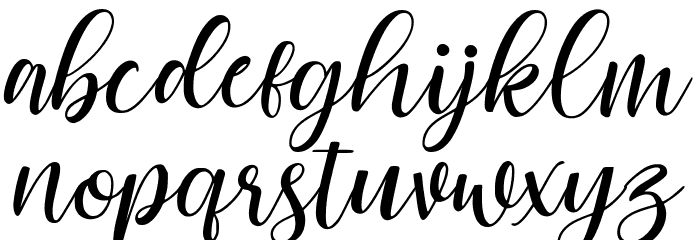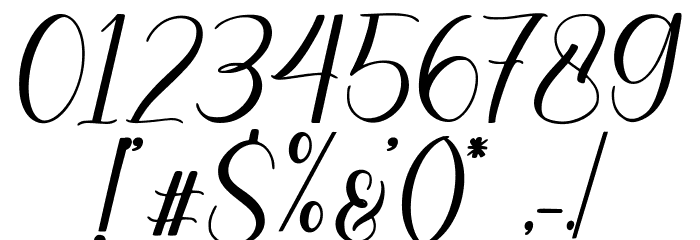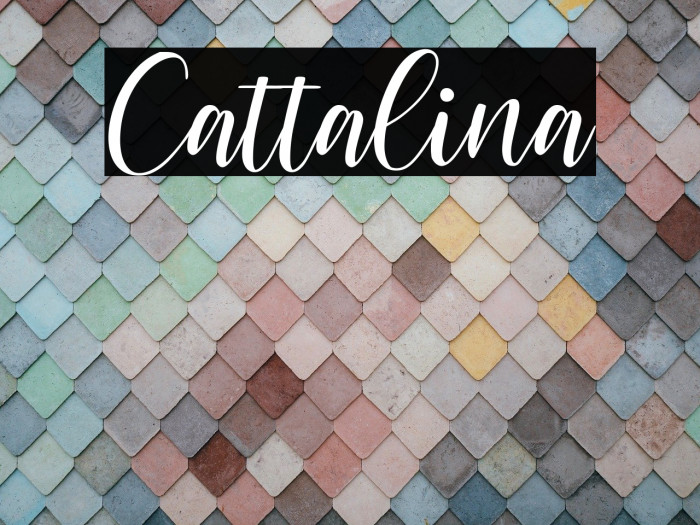
Cattalina Font
This elegant script font features flowing, cursive letterforms with a modern touch. The uppercase letters are characterized by their sweeping, dramatic flourishes, while the lowercase letters maintain a more consistent, rounded appearance. The numerals are stylish and complement the overall aesthetic, making them suitable for a variety of decorative purposes. The special characters are well-integrated, maintaining the font's cohesive look. This font's design is perfect for adding a touch of sophistication and elegance to any project.
A modern, elegant script font with flowing, cursive letterforms.
- Proposed Projects: Ideal for wedding invitations, branding, greeting cards, and elegant signage.
- Category: Script
- Use Case: Logos, Headlines, Invitations